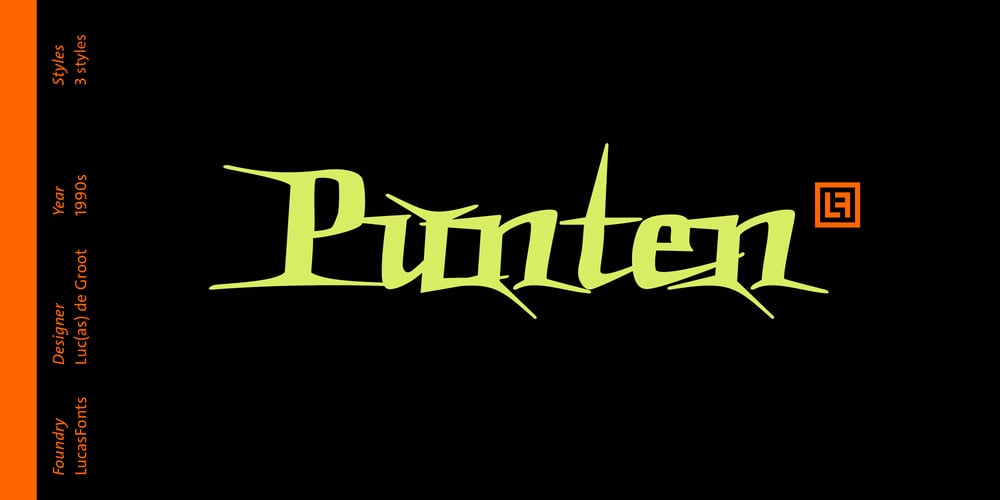
Punten
Punten font
Punten Font Family was designed by Luc(as) de Groot and published by LucasFonts. Punten contains 3 styles and family package options. Type designer Luc(as) de Groot has a large archive of lettering he drew by hand, often to accompany the quirky cartoons which he made in his visual diaries. Only a few of these alpahabets have been digitized into full-fledged typefaces. Punten (Dutch for “points” or “spikes”) is one of them. It comes in three styles of varying legibility: Punten Straight, Punten Extremo, and Punten Rondom (Dutch for “all around”).